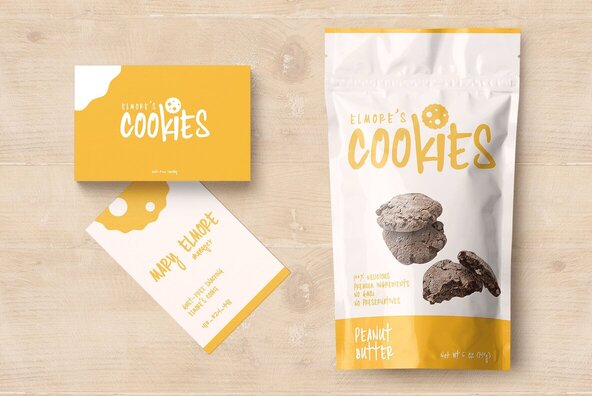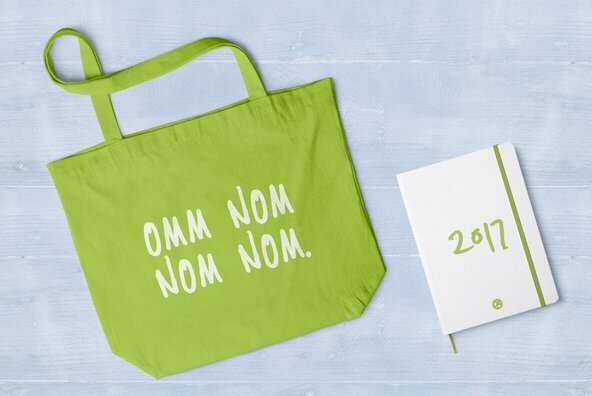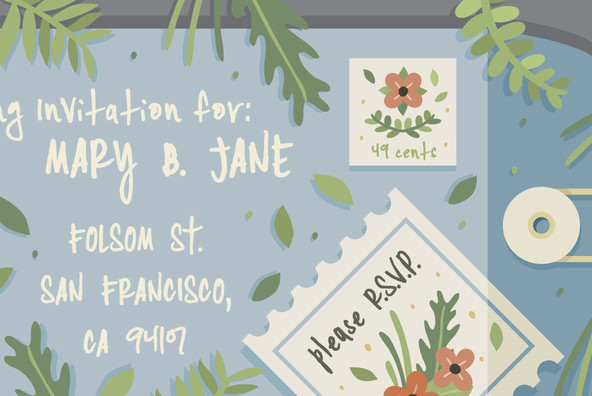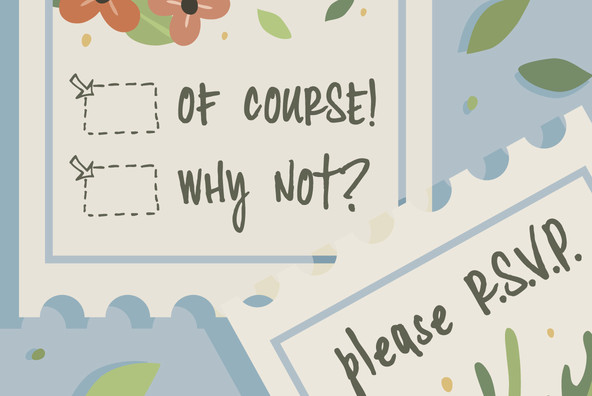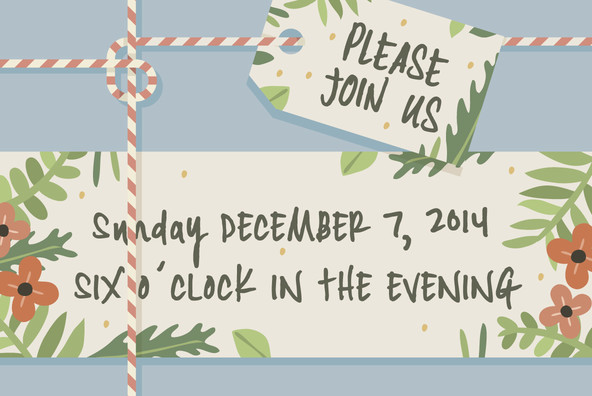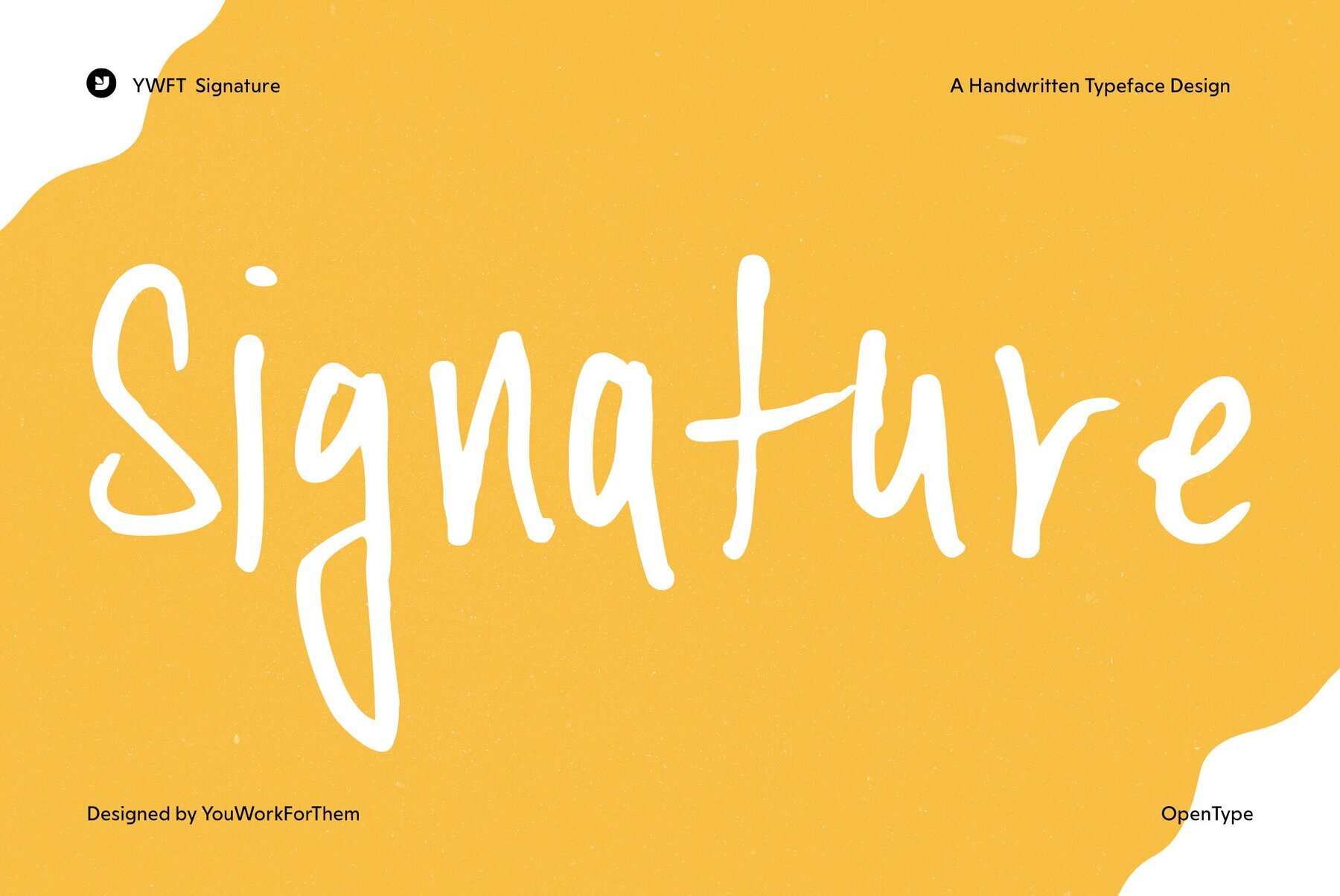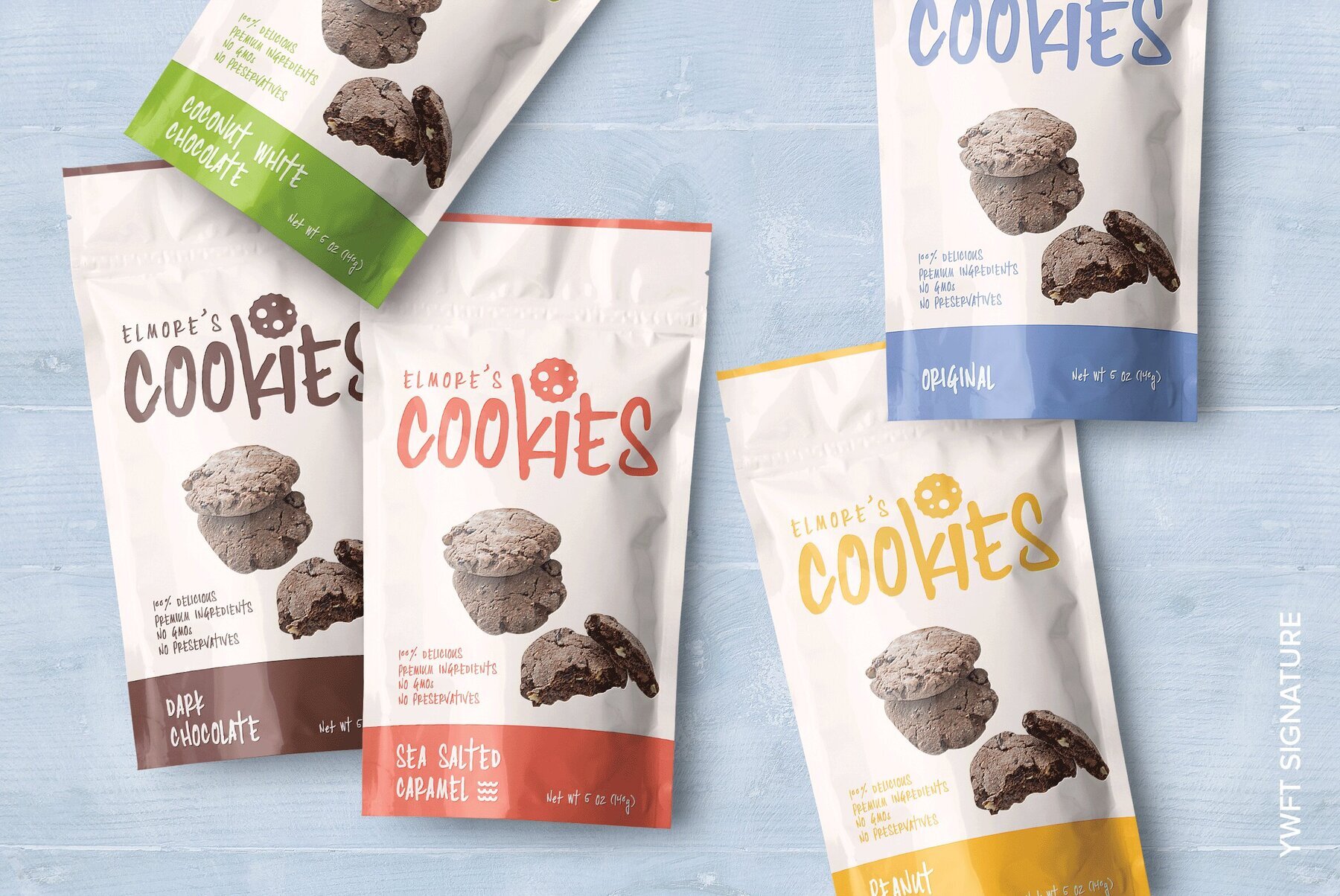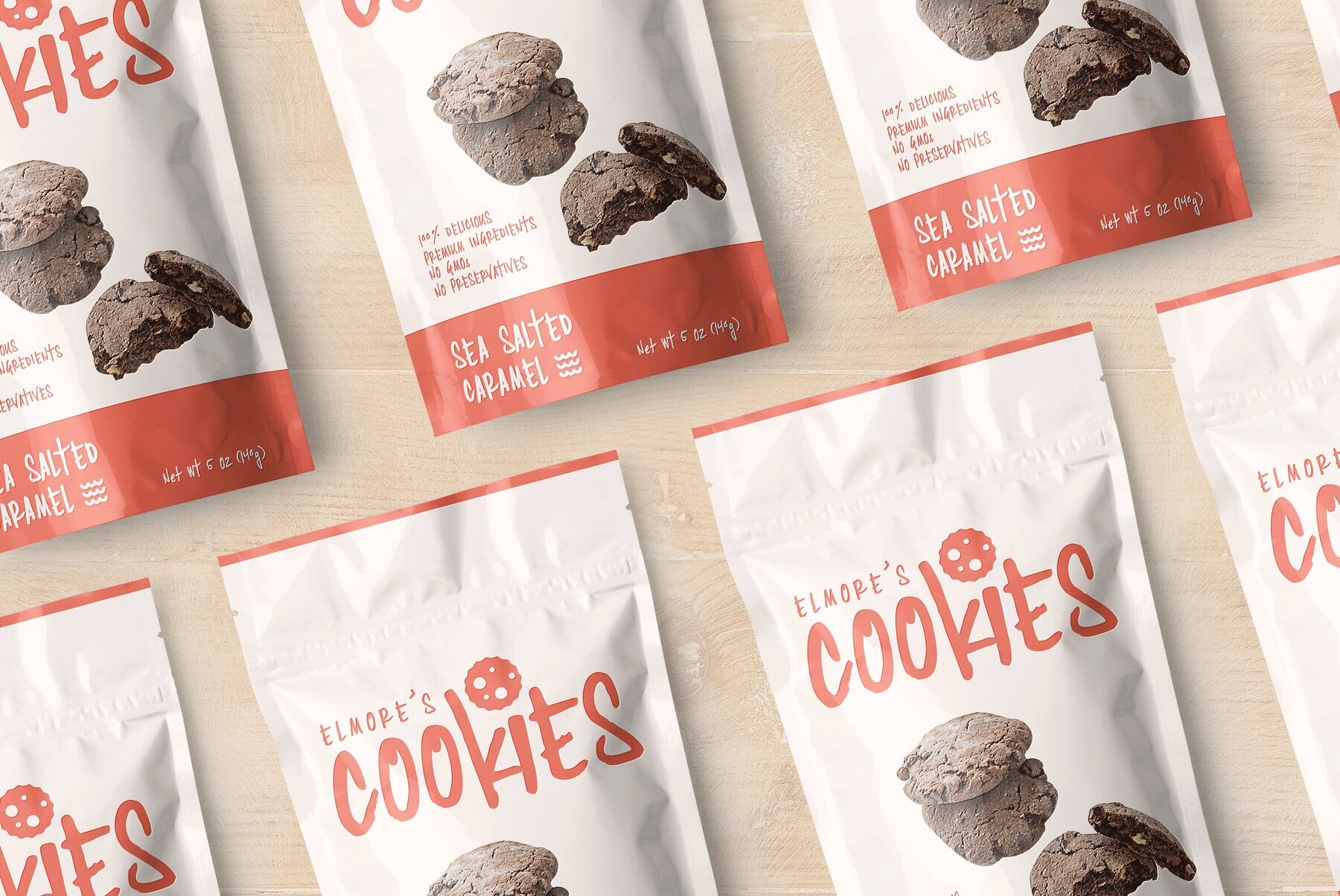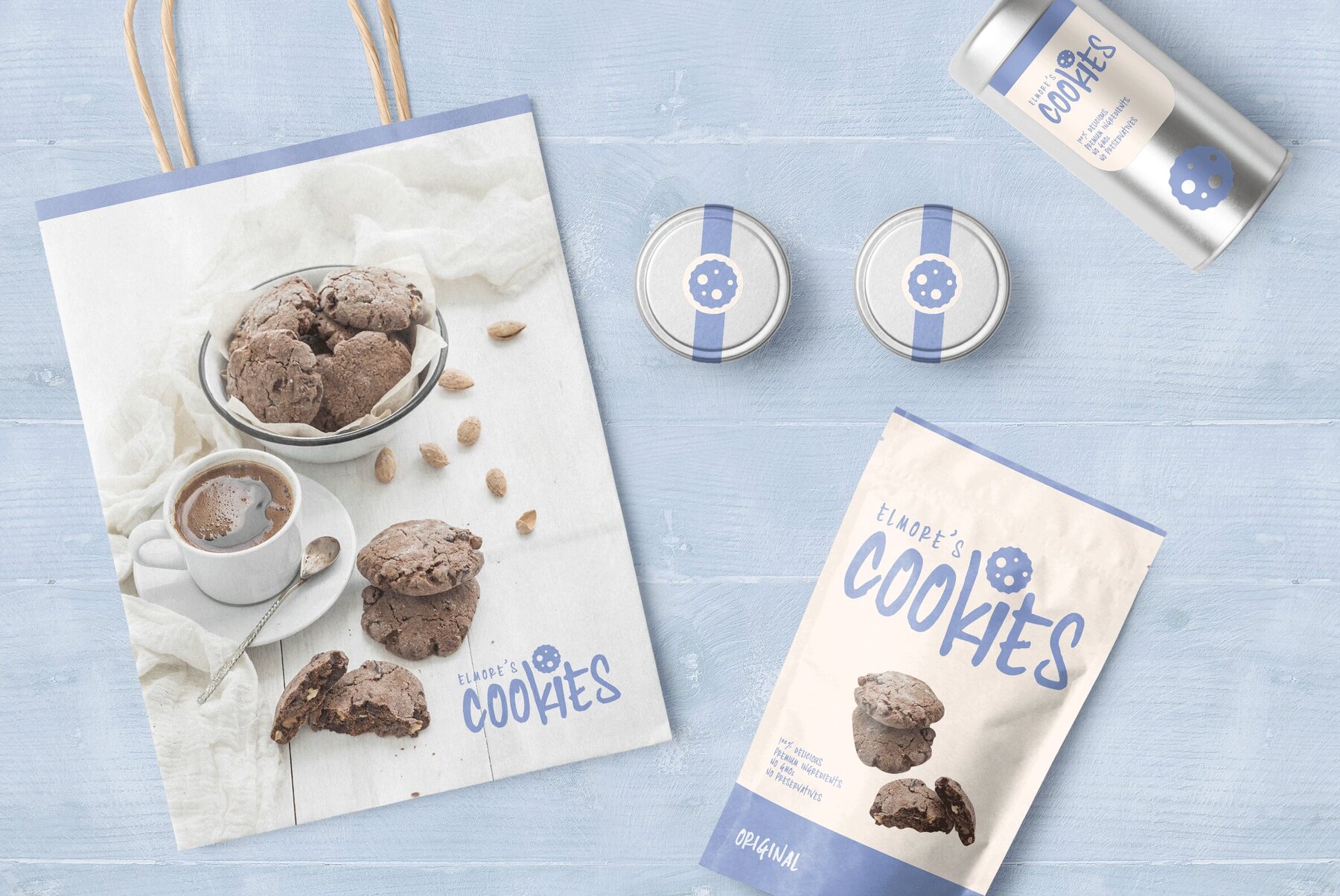
Need to scribble some things with a Sharpie...on a billboard? 40 feet high? YWFT Signature has you covered. YWFT Signature was meticulously crafted as a custom handwriting typeface for use at both small and very large point sizes.
Need to scribble some things with a Sharpie...on a billboard? 40 feet high? YWFT Signature has you covered. YWFT Signature was meticulously crafted as a custom handwriting typeface for use at both small and very large point sizes. Originally created in 1998 for the advertising agency Fallon, YWFT Signature was later augmented with the addition of an alternate family, allowing for the substitution of repeating letters for a more natural writing feel. It was converted to opentype in 2010. Designed exclusively by Michael Cina and YouWorkForThem.